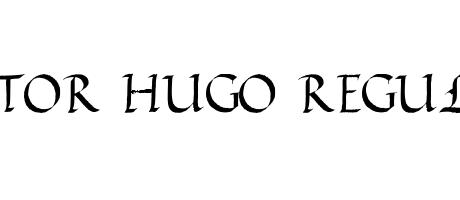
Victor
Le Monde de Victor possesses a whimsical, almost hand-drawn quality. Its letters are slightly uneven, giving it a charmingly rustic feel. The curves are gentle and rounded, suggesting playfulness and approachability. It feels both sophisticated and informal, like a storybook title crafted with care.